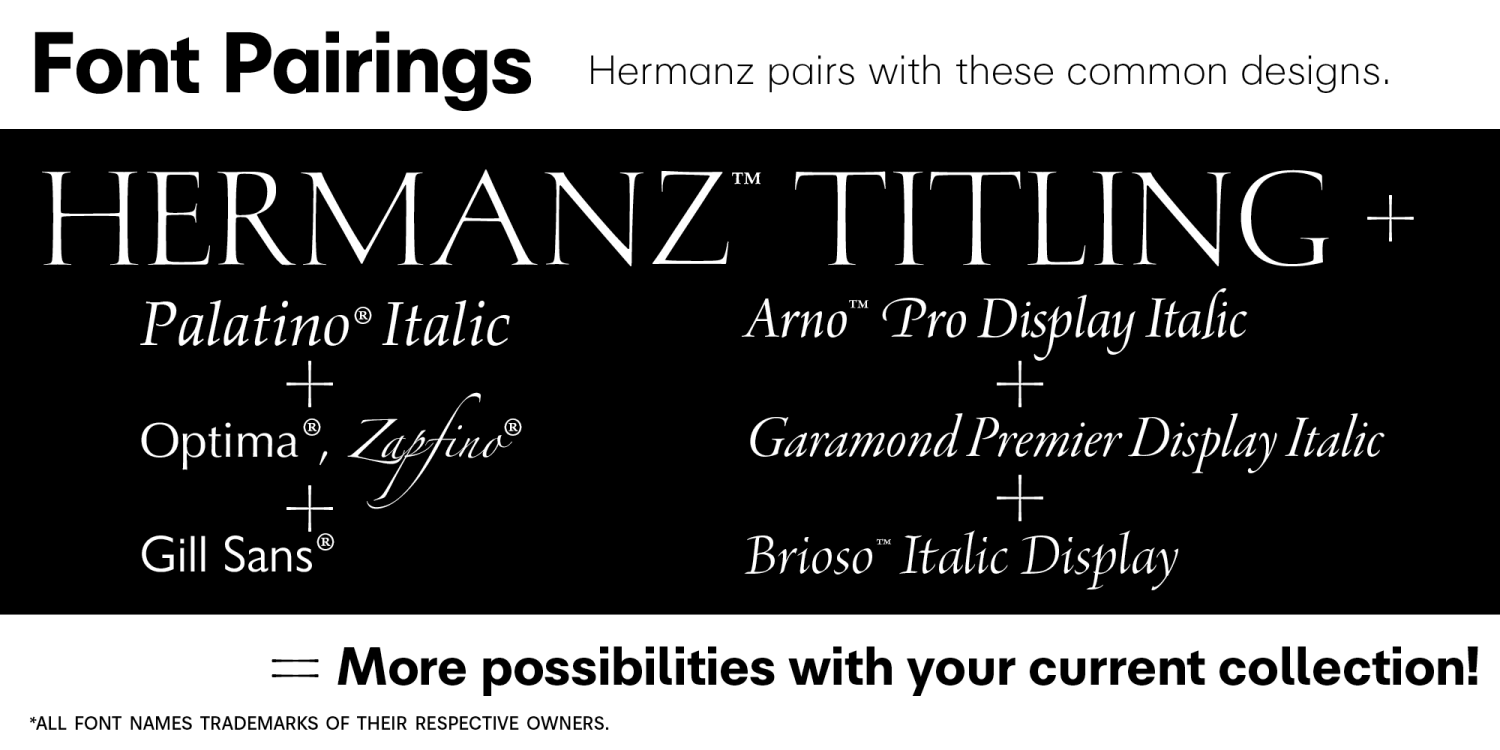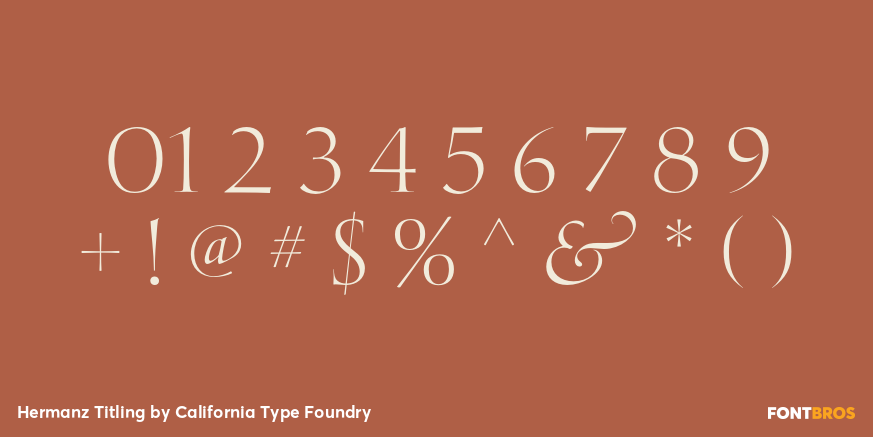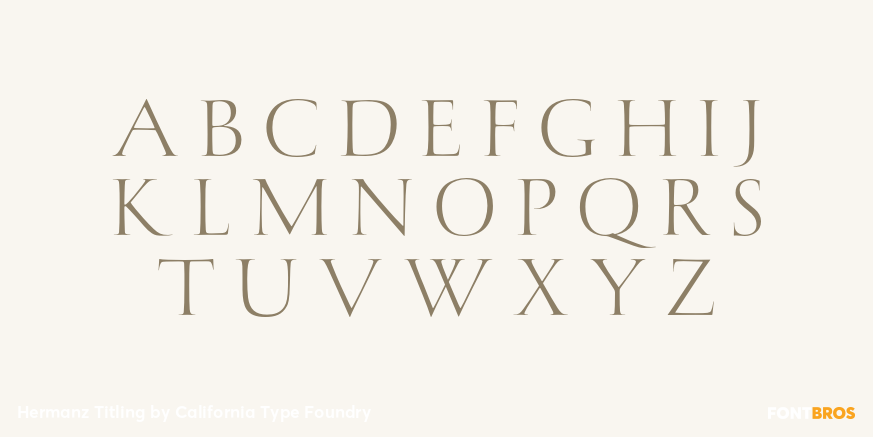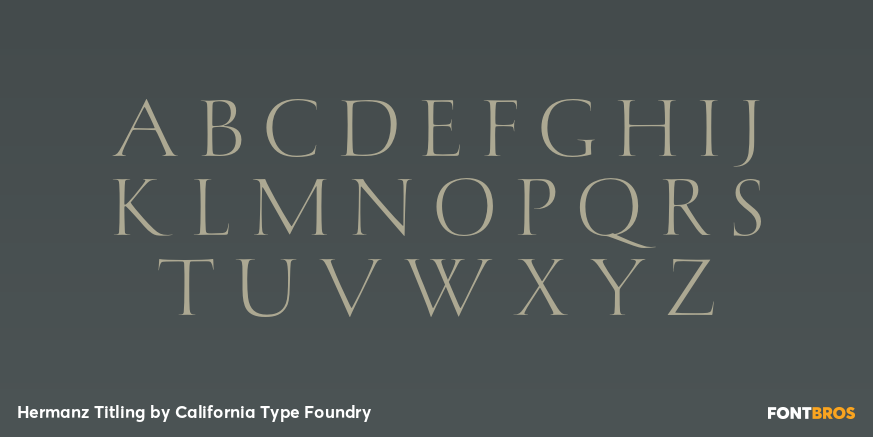
Hermanz Titling
Font Family by California Type Foundry
Hermanz Titling is inspired by the most majestic caps that Hermann Zapf ever drew. They are inscriptional caps, square caps, or ?capitalis monumentalis?. These caps are some of the most beautiful letters made by one of the greatest talents of our time; so beautiful they deserve to be seen and appreciated by everyone.
If you do any work for churches, wedding, funeral, anniversary, or other ceremonies, for the fine arts, exclusive clubs, or higher education?you will love how these letters make your brochures, pamphlets and announcements look.
Hermanz Titling works for anything labeled "fine": fine dining, fine music, fine art (pamphlets, books, posters, cookbooks). It also fits well for religious topics: posters, events, websites, hymnals, for biblical; and ceremonies, religious or otherwise.
Emotions It Can Communicate:
• Importance
• Timelessness
• Special Event
• Tradition
• Reverence
• Artistry
• Beauty
Released June 2021 on the Memorial of Hermann Zapf, as part of the California Type Foundry Memorial Series: Honoring the life and work of the great font designers.
FONT STORY
The Majestic Caps
When I was on one of my visits to rare books rooms I found some large caps of Hermann Zapf, and I knew that I had to make a font inspired by these.
I was surprised that no one had ever made them into a font. They were some of the most beautiful caps I had ever seen.
These caps were surprisingly difficult to make. I thought it would take me a week or two; to get the detail and spirit right took significantly longer? but it was well worth the effort!
When you print Hermanz Titling on a page, you will see what I mean. Even when printed digitally, it's the closest thing to letterpress. You might even have some people thing it was printed by a traditional method with ink! (Note: Unless printed at very large sizes, this font is not recommended for actual letterpress, because the serifs are too thin.)
If you do any work for churches, wedding, funeral, anniversary, or other ceremonies, for the fine arts, exclusive clubs, or higher education?you will love how these letters make your brochures, pamphlets and announcements look.
Enjoy this breathtaking font, and may it help inspire people with your messages! ?Dave Lawrence & the California Type Foundry